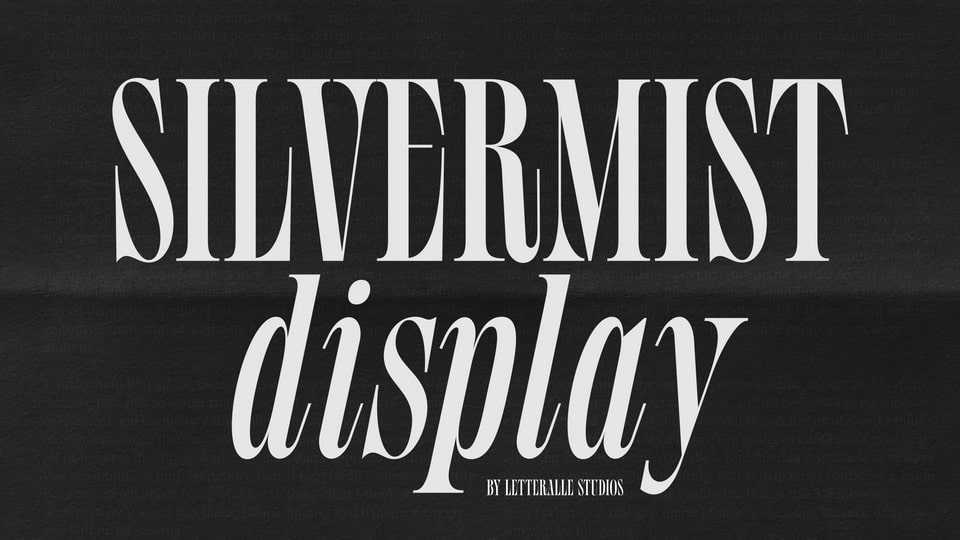
Download Silvermist font, a display serif typeface made to express things in a masculine and assertive way. With narrow letters, it makes it have a more dominant impression.